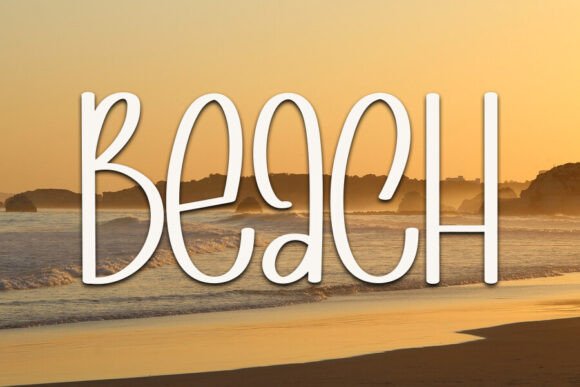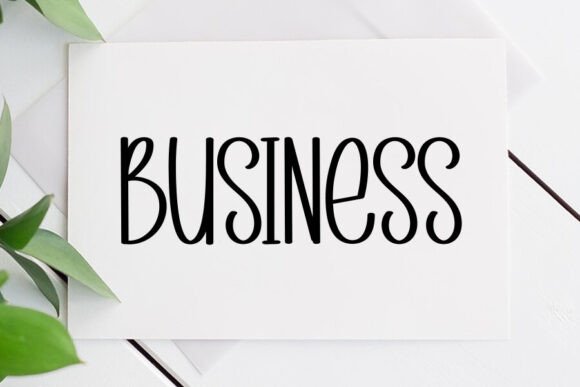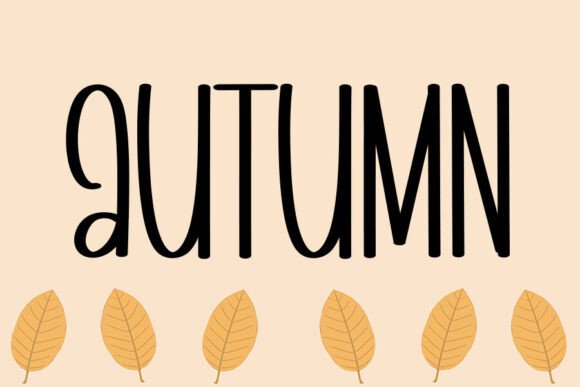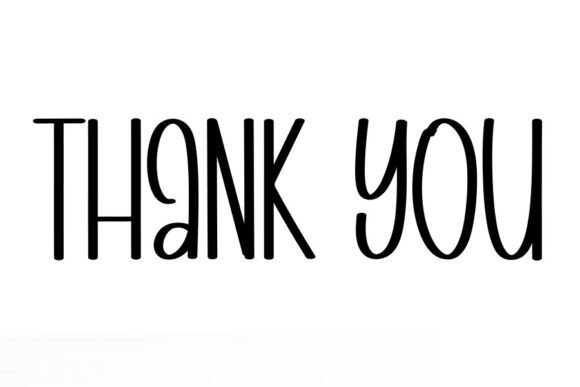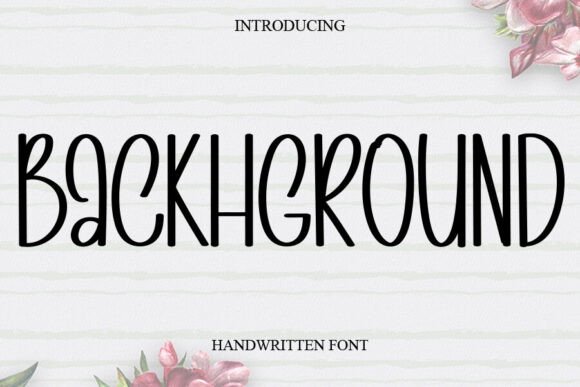
Introducing Background Font: The Sweet and Cursive Handwritten Font for Your Design Needs
Are you looking for a font that can add a touch of elegance and whimsy to your designs? Look no further than Background Font, a sweet and cursive handwritten font that’s perfect for a variety of design projects. With its gentle and flowing curves, Background Font is sure to bring a joyful and romantic touch to your work.
What Makes Background Font Special?
Background Font is a unique and versatile font that’s designed to make your designs stand out. Its cursive and handwritten style gives it a personal and human touch, making it perfect for projects where you want to convey a sense of warmth and personality. Whether you’re working on a branding project, a wedding invitation, or a fashion lookbook, Background Font is the perfect choice.
Design Ideas to Use Background Font
Background Font is a versatile font that can be used in a variety of design projects. Here are some ideas to get you started:
• Branding: Use Background Font to create a unique and memorable brand identity. Its elegant and cursive style makes it perfect for logos, business cards, and other marketing materials.
• Wedding Things: Add a touch of romance and whimsy to your wedding designs with Background Font. It’s perfect for wedding invitations, save-the-date cards, and other wedding stationery.
• Greeting Cards: Use Background Font to create beautiful and heartfelt greeting cards for special occasions like birthdays, anniversaries, and holidays.
• Fashion: Background Font is perfect for fashion designers who want to add a touch of elegance and sophistication to their designs. Use it to create stunning lookbooks, fashion magazines, and marketing materials.
• Marketing Promotion: Use Background Font to create eye-catching marketing materials like brochures, flyers, and posters. Its unique and cursive style is sure to grab attention and make your brand stand out.
Why Choose Background Font?
There are many reasons why Background Font is the perfect choice for your design needs. Here are just a few:
• Elegant and Cursive: Background Font has a beautiful and elegant cursive style that’s perfect for designs where you want to convey a sense of sophistication and refinement.
• Versatile: Background Font is a versatile font that can be used in a variety of design projects. Whether you’re working on a branding project or a wedding invitation, Background Font is the perfect choice.
• Easy to Read: Despite its cursive style, Background Font is easy to read and understand. This makes it perfect for designs where you need to communicate a message clearly and effectively.
• Unique: Background Font has a unique and distinctive style that’s sure to make your designs stand out. Its cursive and handwritten style gives it a personal and human touch that’s hard to find in other fonts.
Tips for Using Background Font
Here are some tips for using Background Font in your designs:
• Use it with a Simple Background: Background Font looks best with a simple background that doesn’t compete with the font. Use a solid color or a subtle texture to make the font stand out.
• Experiment with Colors: Background Font looks great in a variety of colors. Experiment with different colors to find the one that works best for your design.
• Use it in Combination with Other Fonts: Background Font can be used in combination with other fonts to create a unique and interesting design. Try pairing it with a bold and sans-serif font for a striking contrast.
Font Name Background Font
Author salma studio
Background Font is a beautiful and versatile font that’s perfect for a variety of design projects. Its elegant and cursive style makes it perfect for designs where you want to convey a sense of sophistication and refinement. Whether you’re working on a branding project, a wedding invitation, or a fashion lookbook, Background Font is the perfect choice. So why wait? Download Background Font today and start creating stunning designs that will leave a lasting impression!